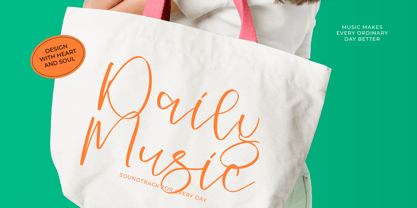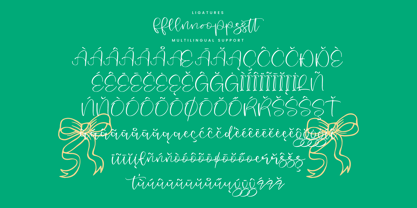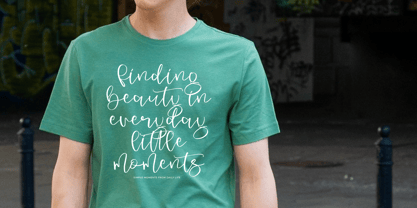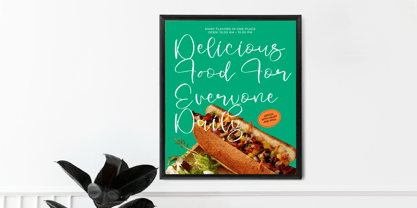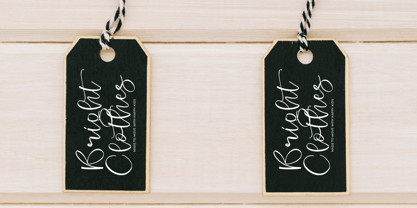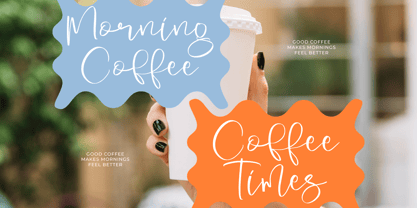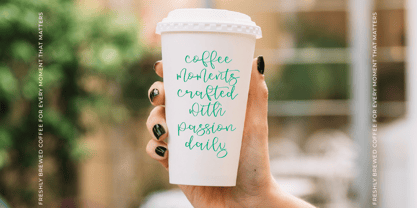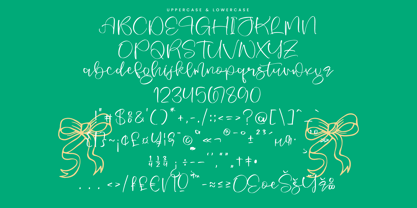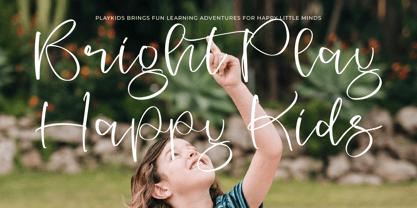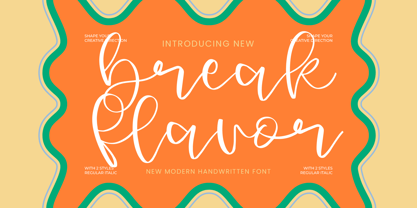
Break Flavor
The Break Flavor Font Family was designed by Dimas Alif Maulana and published by Integritype. Break Flavor contains 2 styles and family package options. More about this family
Break Flavor is a modern handwritten font that exudes a bold, fresh, and expressive personality. Designed to embody the energy of contemporary handwriting, this font features natural strokes combined with a modern structure, ensuring both style and readability. With its smooth flow and confident handwritten style, Break Flavor is perfect for a variety of applications including branding, logos, packaging, posters, social media graphics, quotes, and creative lifestyle designs. This font offers a relaxed yet modern aesthetic, making it ideal for projects that require a casual, authentic, and trendy handwritten look. Break Flavor pairs seamlessly with clean sans-serif or strong display fonts, enabling designers to craft dynamic and eye-catching compositions for both digital and print media. Perfect for modern branding, logo design, packaging, posters, social media content, quotes, creative advertising, lifestyle projects, and contemporary handwritten designs.